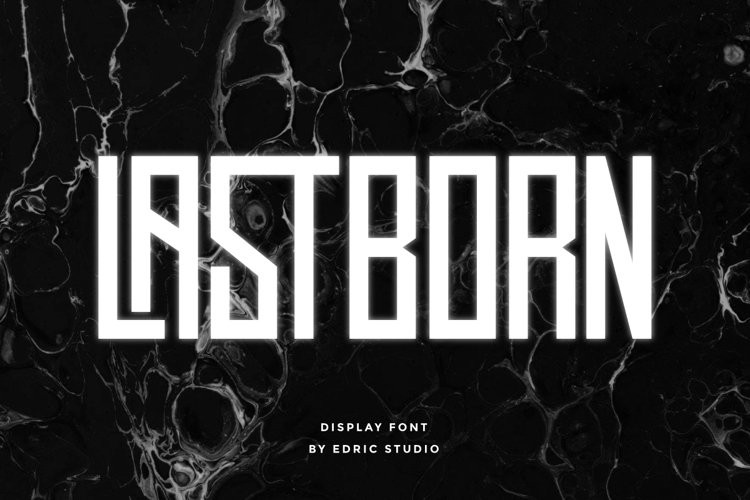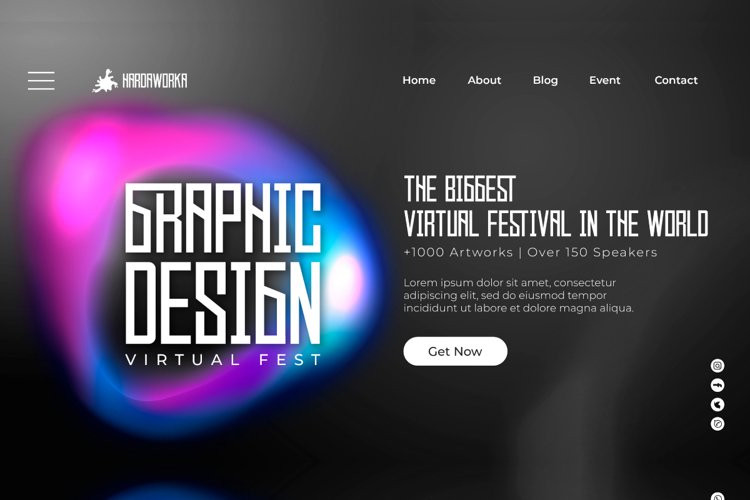
Lastborn Font
Lastborn FontLastborn is a strong unique display font with modern style. It has a strong, modern, mysterious, horror and exclusive glyphs. Lastborn Font will be perfect for branding, logo, photography, headline etc. The font comes with unique ligatures to make it exclusive looks.